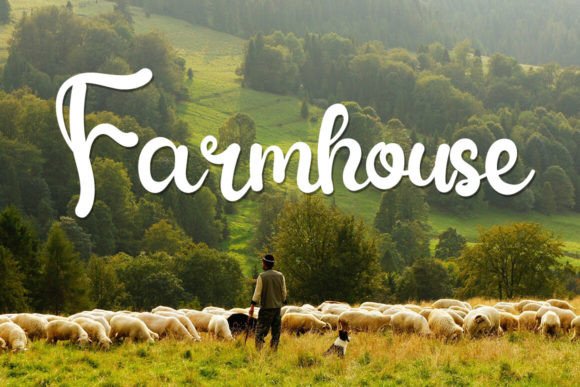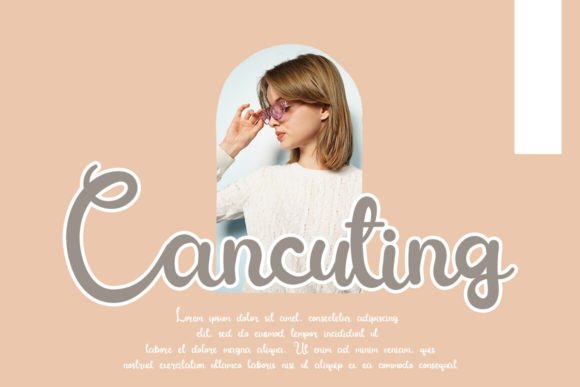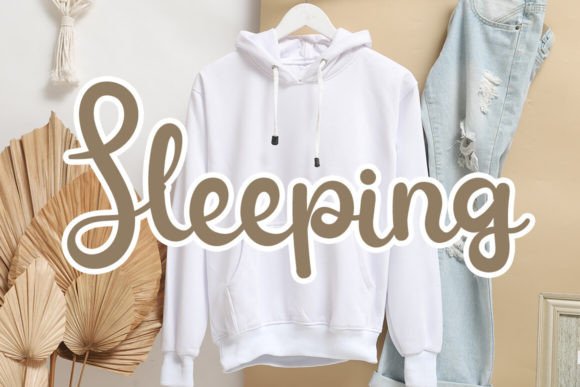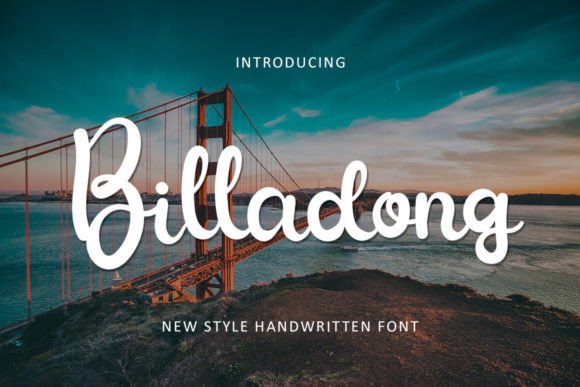
Discover the Delightful Elegance of Billadong Font
In the world of typography, a font can make all the difference in the aesthetic appeal of a design. For designers and crafters looking for a fresh, clean, and elegant font to elevate their projects, Billadong Font is an excellent choice. This beautifully crafted font exudes a sweet charm and executive elegance, making it perfect for a wide range of applications, from formal to casual.
The Unique Characteristics of Billadong Font
Billadong Font boasts a unique blend of simplicity and elegance, making it an ideal choice for designers seeking to create striking visuals. Its beautifully simple structure is designed to enhance and elevate your designs, ensuring your business conveys a striking aesthetic appeal. The font’s clean lines and curves create a sense of joy and vibrancy, infusing your designs with a lively energy that’s sure to capture the attention of your audience.
One of the standout features of Billadong Font is its versatility. Whether you’re working on a formal project, such as a corporate brochure or a luxury brand advertisement, or a casual project, like a social media graphic or a craft project, this font effortlessly blends in and adapts to the tone and style of your design. This adaptability makes Billadong Font an excellent addition to any designer’s toolkit.
Elegance and Charm
Billadong Font carries an unmistakable touch of joy and elegance, making it perfect for designers who want to add a touch of sophistication and whimsy to their designs. The font’s sweet charm and executive elegance ensure that your designs convey a sense of professionalism and style, setting your brand apart from the competition.
Enhance Your Brand Identity
In today’s competitive market, a strong brand identity is crucial for businesses to stand out. Billadong Font can play a significant role in enhancing your brand’s visual identity. Its transformative elegance brings designs to life, adding a vibrant energy that’s sure to engage your audience. By incorporating Billadong Font into your design projects, you can create a consistent and striking aesthetic that reinforces your brand’s message and values.
Whether you’re a professional designer or a crafter looking for a unique font to add to your projects, Billadong Font is an excellent choice. Its ease of use and versatility make it perfect for a wide range of applications, from digital designs to print projects. With Billadong Font, you can create stunning visuals that capture the essence of your brand and leave a lasting impression on your audience.
Experience the Transformative Elegance
Experience the transformative elegance of Billadong Font and discover how it can elevate your designs and enhance your brand identity. With its unique blend of simplicity, elegance, and charm, this font is sure to become a staple in your design toolkit. So why wait? Immerse yourself in the delightful embrace of Billadong Font and watch as it brings your designs to life.
Key Features of Billadong Font
- Fresh, clean, and elegantly crafted design
- Sweet charm and executive elegance
- Versatile and adaptable to various design projects
- Beautifully simple structure
- Unmistakable touch of joy and vibrancy
- Perfect for formal and casual design projects
- Enhances brand identity and visual appeal
In conclusion, Billadong Font is a stunning font that offers a unique blend of elegance, charm, and versatility. Its beautifully crafted design and adaptability make it perfect for designers and crafters looking to elevate their projects and enhance their brand identity. With Billadong Font, you can create striking visuals that capture the essence of your brand and leave a lasting impression on your audience. So why wait? Discover the delightful elegance of Billadong Font and experience the transformative power of typography in your designs.